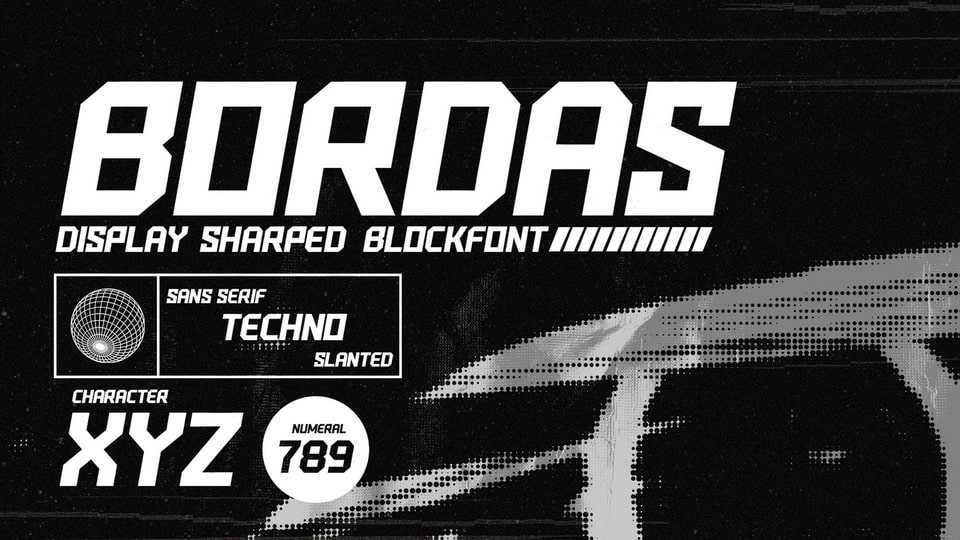
Download Bordas font, a sharped block typeface that offers all the styles you need for modern techno theme. Best for posters, headlines and any display use.
Designer: Drizy Studio